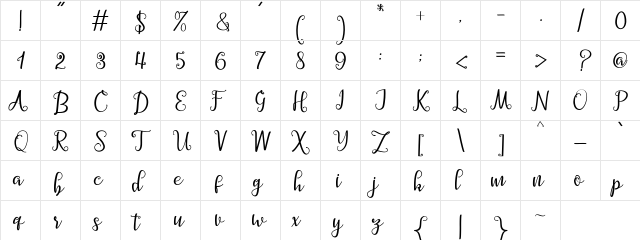
Barbara Script Regular
| Foundry | Fajriadi_pholetter |
| Designer | Fajriadi_pholetter |
Design Context for Barbara Script Typeface
Barbara Script flows with the natural rhythm of handwritten lettering, making it ideal for designs that call for warmth and personal expression.
Font Pairing: Combine Barbara Script with a simple geometric sans for maximum contrast — the tension between flowing curves and clean structure is a classic typographic pairing.
Pro Tip: Pair Barbara Script with a clean sans-serif for supporting text. The contrast between fluid script and geometric structure creates an elegant typographic hierarchy.